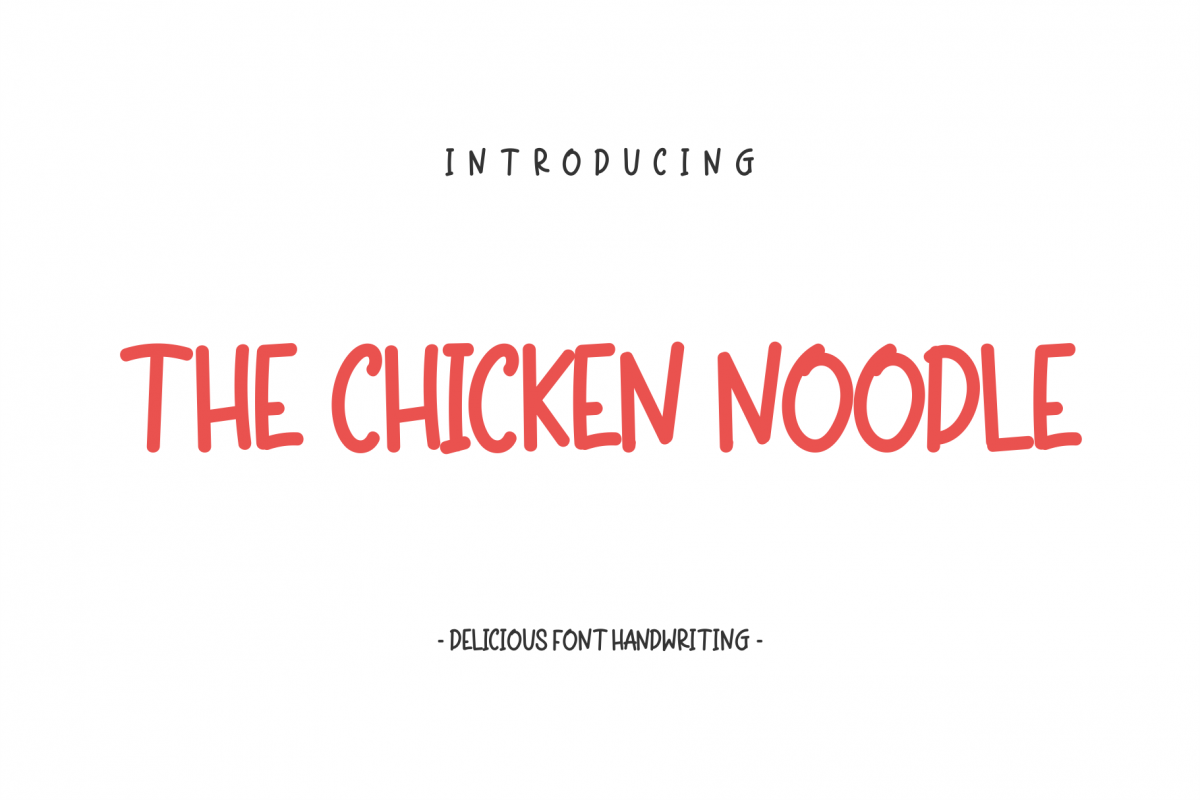
The Chicken Noodle
he Chicken Noodle is a font with handwriting style,it will give a relaxed impression on your design product. This font is suitable for use in product labels, posters, logos, videos, animations or other products that require a relaxed impression.What You Get: